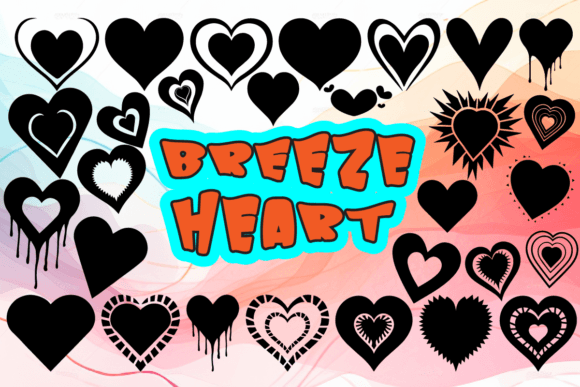
Breeze Heart Font: Spread Love and Joy with Charming Heart Motifs
In the world of digital design, fonts play a crucial role in conveying emotions and adding personality to creative projects. If you’re looking for a unique and charming font to express love and joy, look no further than the Breeze Heart Font. This delightful digital product features 36 adorable characters, including the full alphabet from A to Z and the numbers 0 through 9, all adorned with heart motifs. In this article, we’ll explore the Breeze Heart Font, its features, and how you can use it to add a touch of love and joy to your designs.
Introducing Breeze Heart Dingbats Fonts!
The Breeze Heart Dingbats Fonts is a digital product that offers a collection of 36 charming characters, including:
- Full alphabet from A to Z
- Numbers 0 through 9
Key Features of Breeze Heart Font
The Breeze Heart Font offers several key features that make it a must-have for designers:
- 36 Charming Characters: The font includes the full alphabet from A to Z and the numbers 0 through 9, all designed with adorable heart motifs.
- Perfect for Various Designs: The Breeze Heart Font is suitable for a wide range of designs, including romantic quotes, playful posters, and cute social media graphics.
Use Cases for Breeze Heart Font
The Breeze Heart Font is versatile and can be used in various design projects, including:
- Romantic Quotes and Posters: Add a touch of love and romance to your quotes and posters with the charming heart motifs.
- Social Media Graphics: Create cute and playful social media graphics that are sure to capture the attention of your audience.
- Greeting Cards and Invitations: Design beautiful greeting cards and invitations for special occasions, such as Valentine’s Day, weddings, and anniversaries.
- Branding and Packaging: Use the Breeze Heart Font to add a playful and romantic touch to your brand’s packaging and branding materials.
Tips and Tricks for Using Breeze Heart Font
Here are some tips and tricks to help you get the most out of the Breeze Heart Font:
- Experiment with Colors: Experiment with different colors to add a pop of color to your designs.
- Mix and Match: Mix and match the heart motifs with other fonts and graphics to create unique designs.
- Use in Combination with Other Fonts: Use the Breeze Heart Font in combination with other fonts to create visually appealing designs.
The Breeze Heart Font is a charming digital product that offers a collection of 36 adorable characters, including the full alphabet from A to Z and the numbers 0 through 9, all adorned with delightful heart motifs. With its ease of use, compatibility with various design software, and versatility, this font is perfect for designers looking to add a touch of love and joy to their designs. Whether you’re creating romantic quotes, playful posters, or cute social media graphics, the Breeze Heart Font is sure to be a great addition to your font library.
Spread Love and Joy with Breeze Heart Dingbats Fonts!